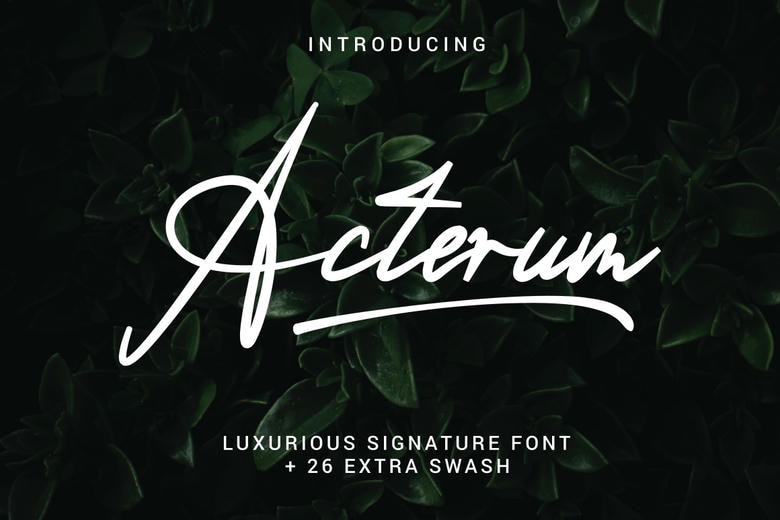
Acterum Font
Acterum is a gorgeous looking script with rich swashes and a unique, authentic style. Use it to add a fancy feel to a wide range of design ideas! This typeface is perfect for elegant logos, branding, travel promotions, layout magazines, beauty products, product packaging, quotes, or simply as a stylish text overlay onto any background image.
Acterum Signature Script Font